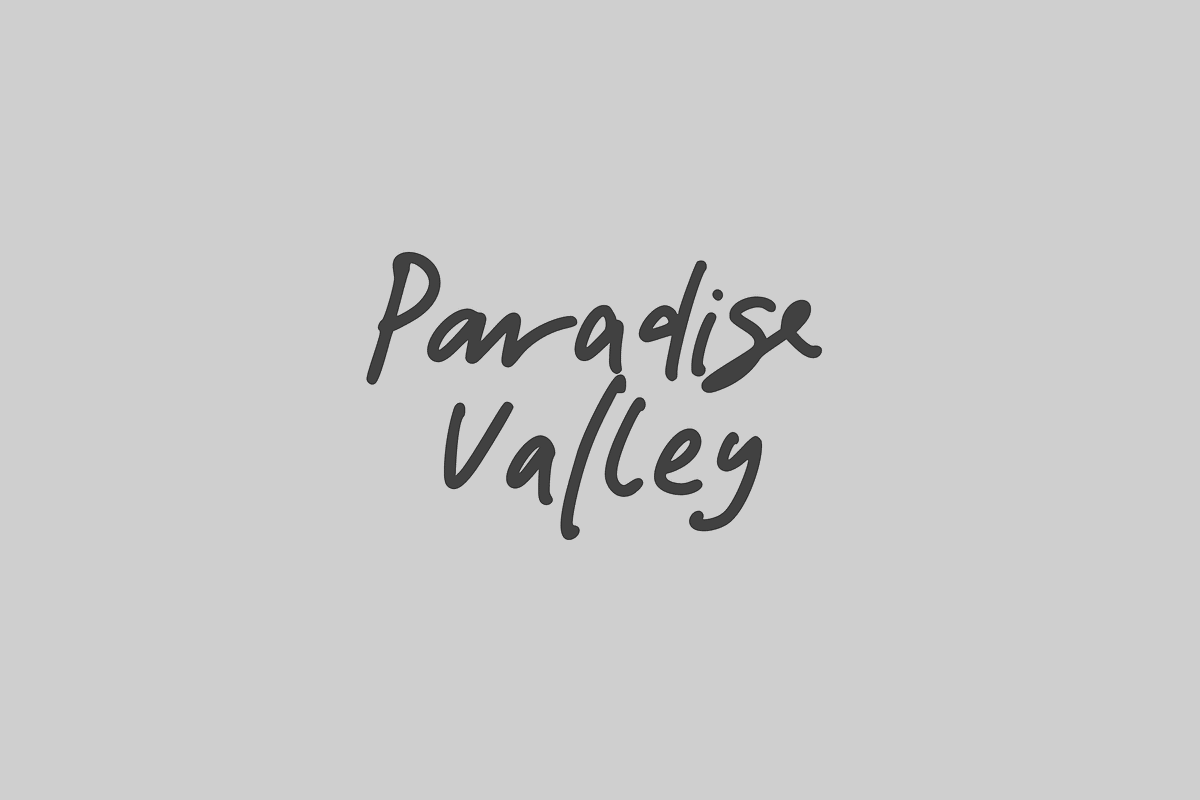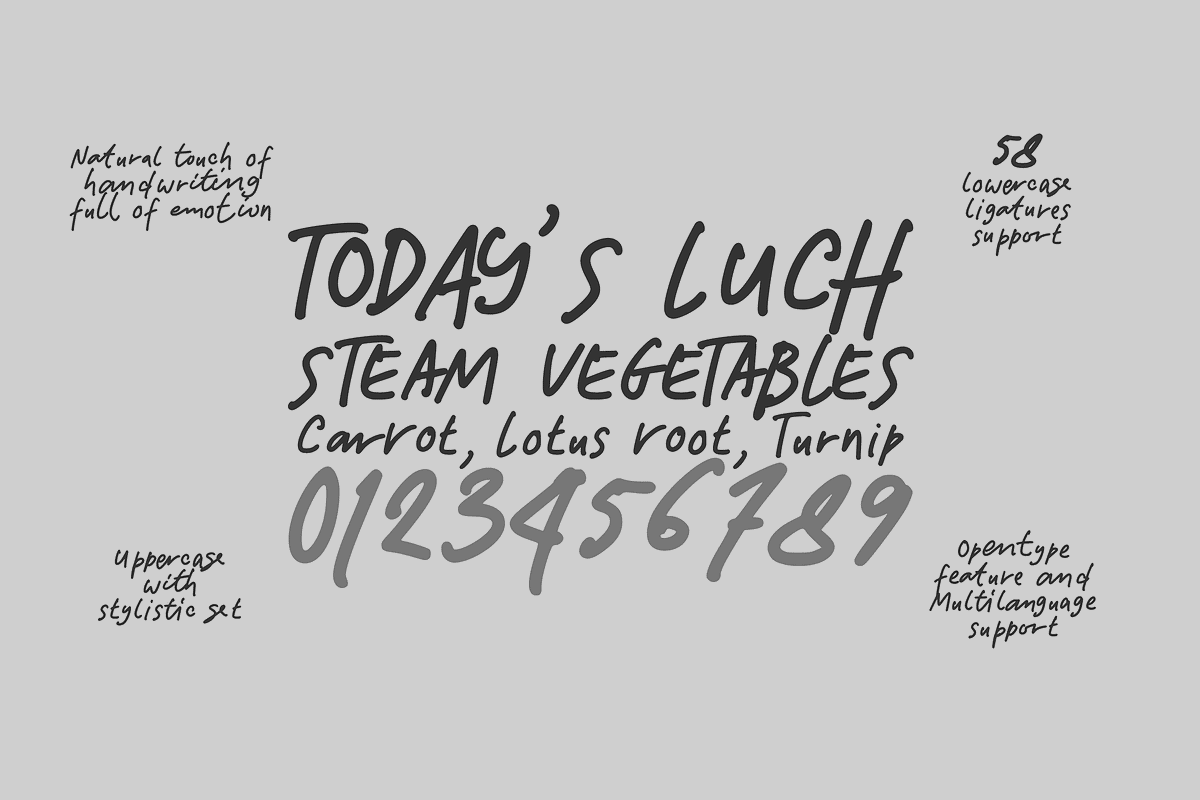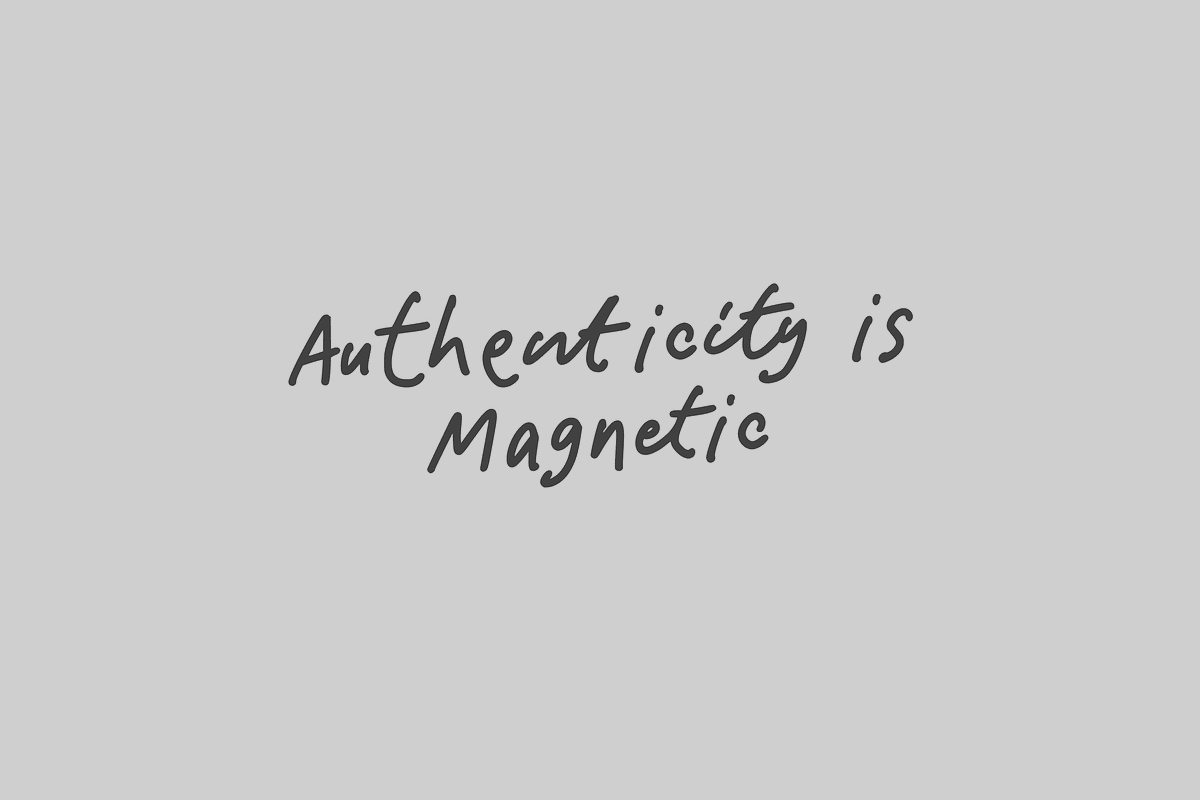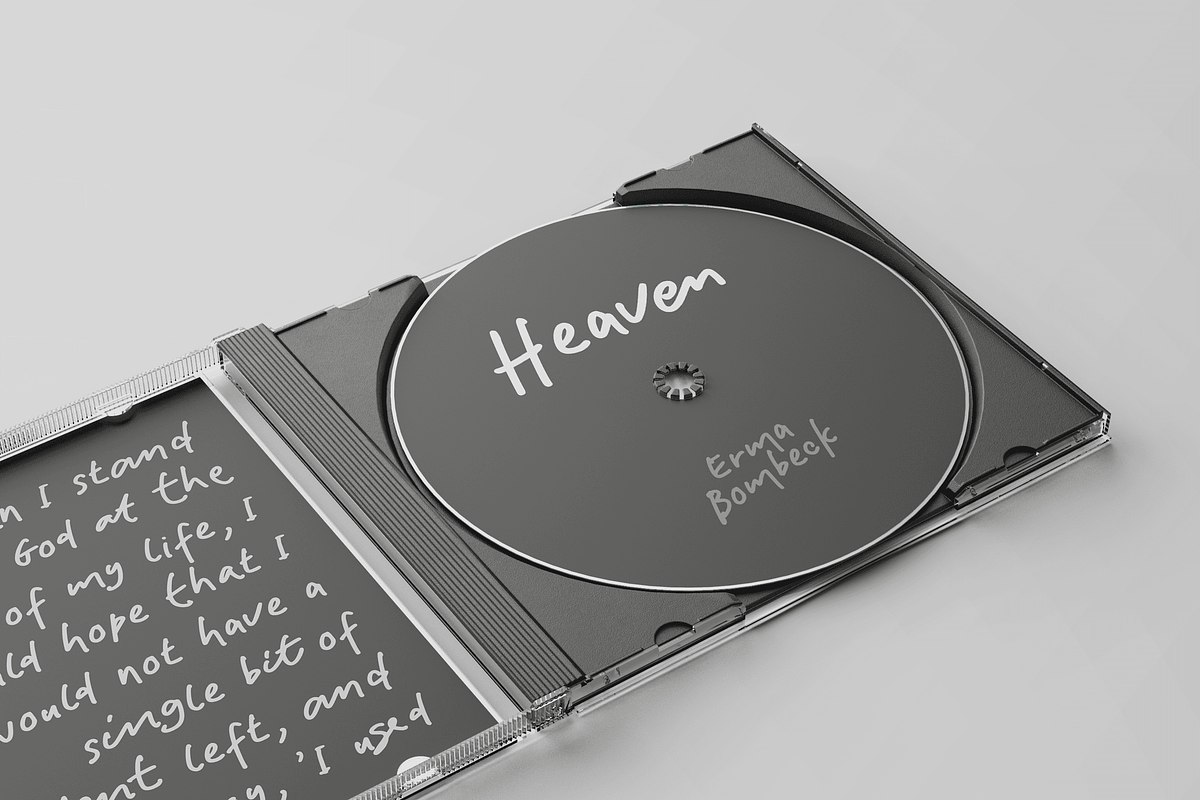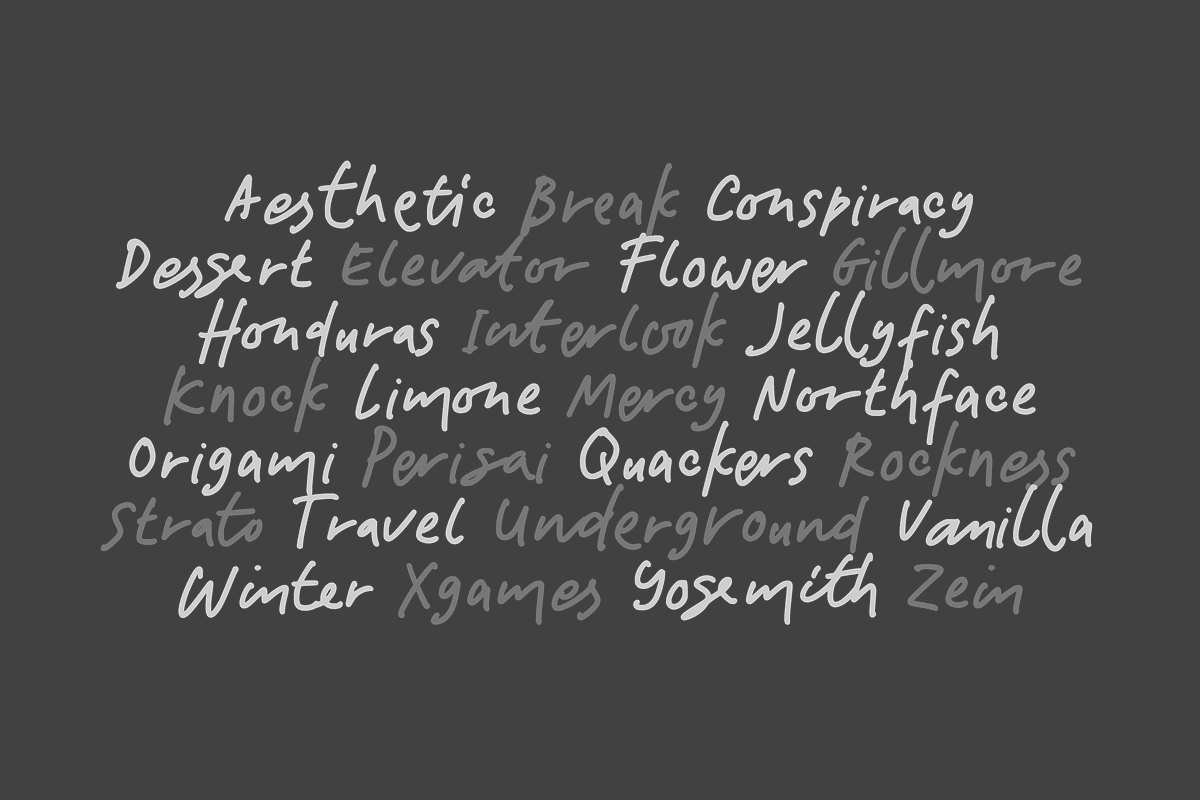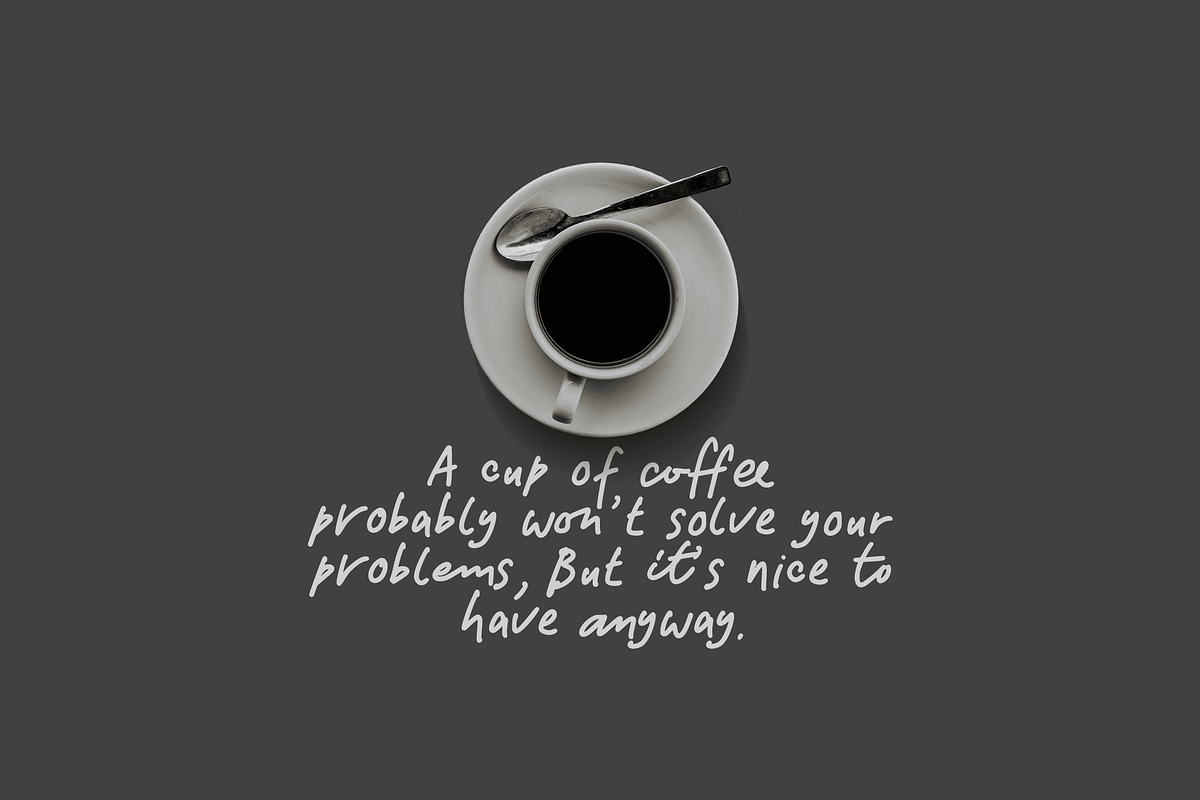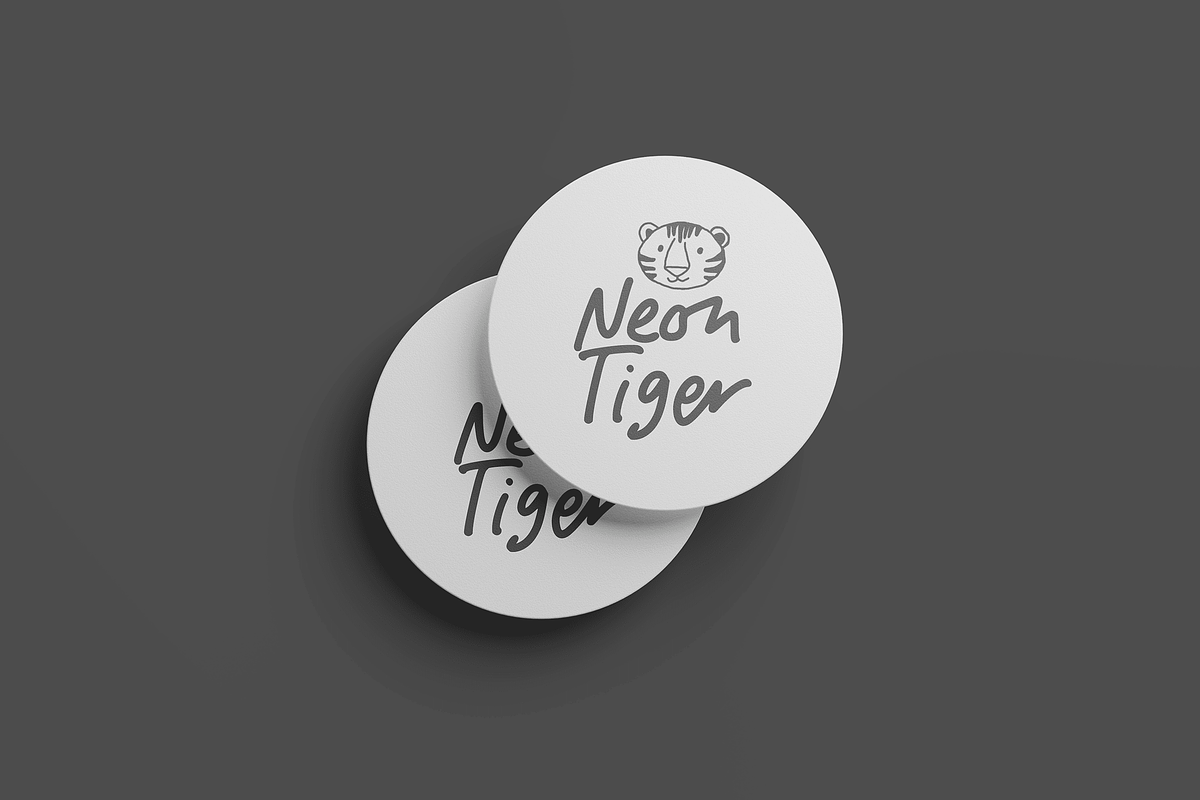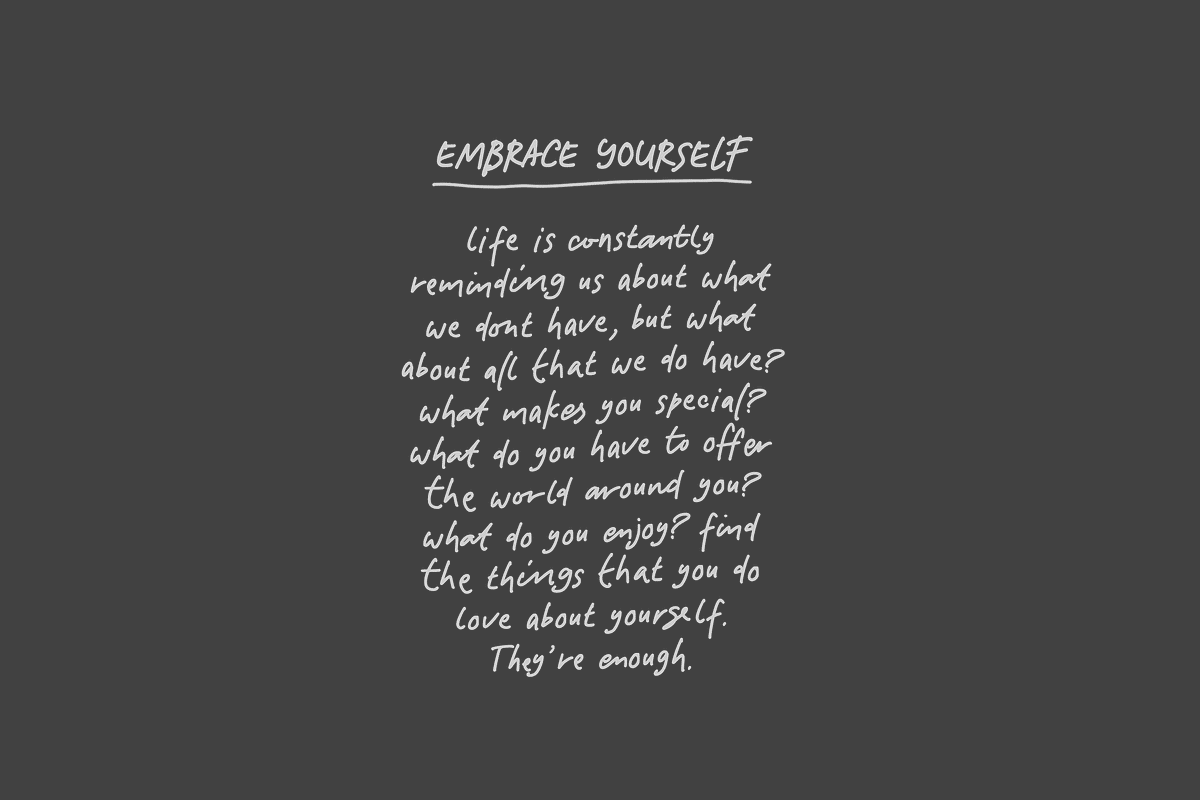
Paradise Valley
The art of handwriting is a personal expression that carries the unique touch of the writer’s emotions. A natural handwritten font that embodies emotion can convey warmth, sincerity, and a human touch that digital fonts often lack. It’s like a snapshot of someone’s feelings captured on paper, where each stroke tells a story, each curve holds a secret, and each line is a testament to the moment’s sentiment. Such fonts are often sought after for special occasions like invitations, personal letters, quotes or any project where one wishes to add a personal, heartfelt touch.